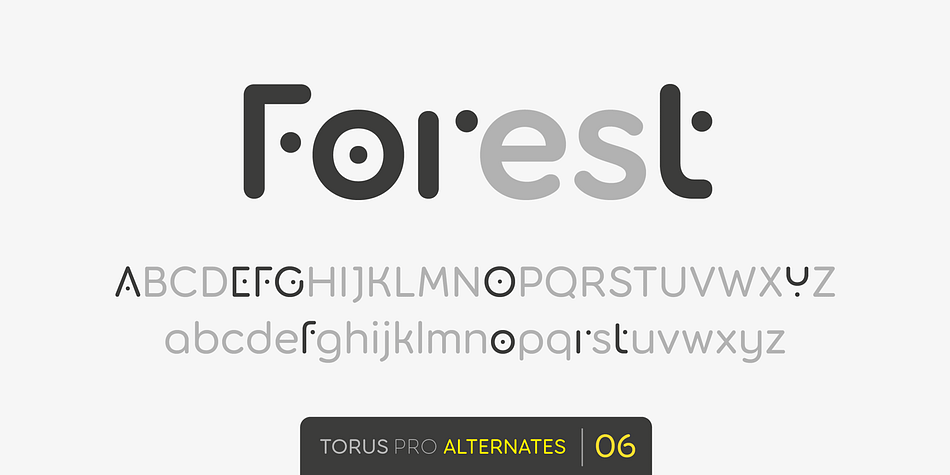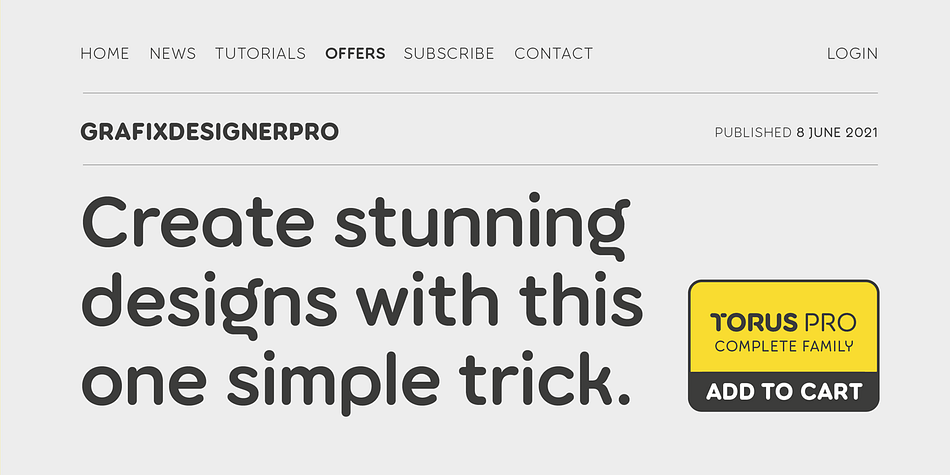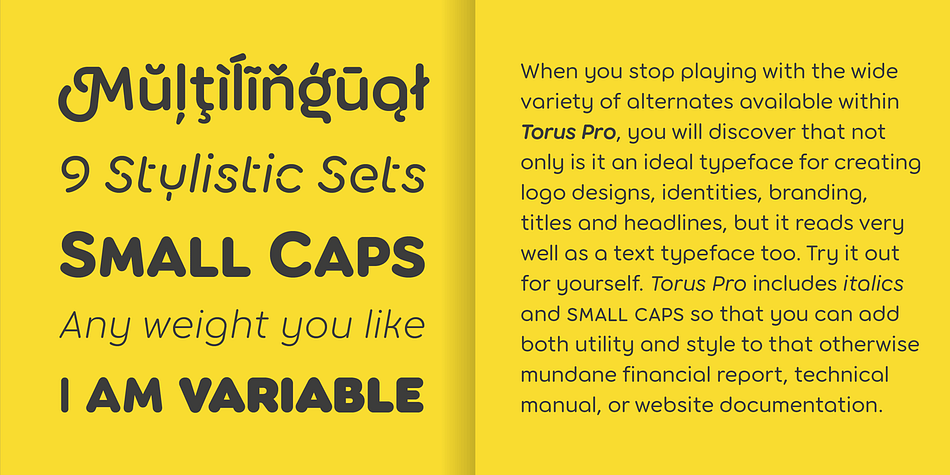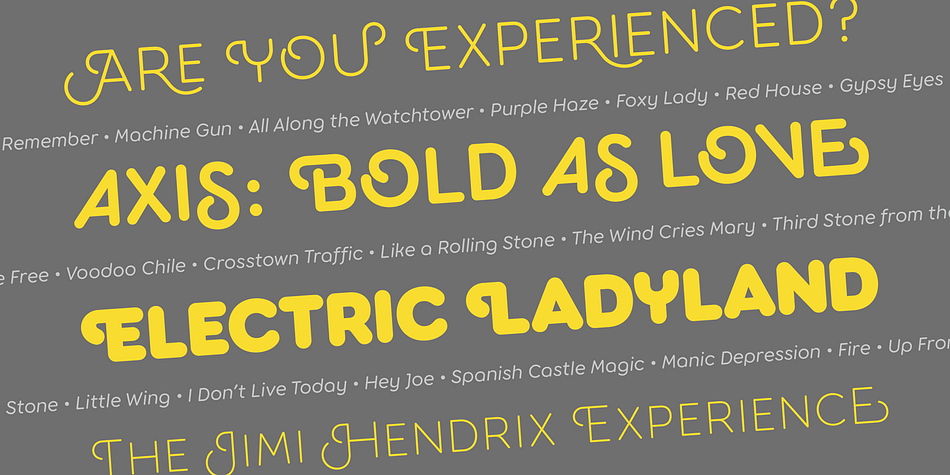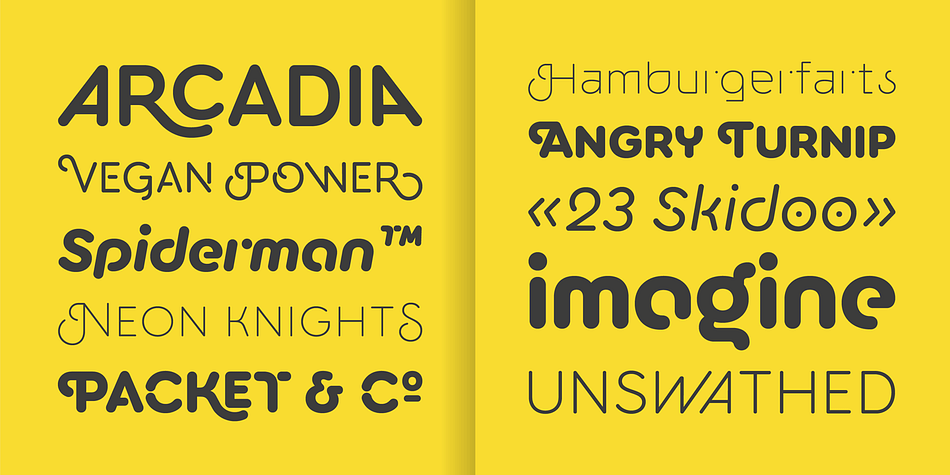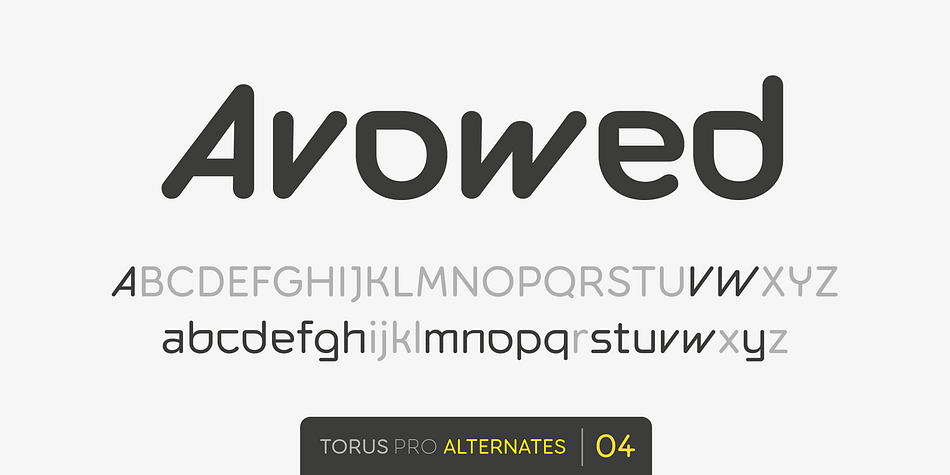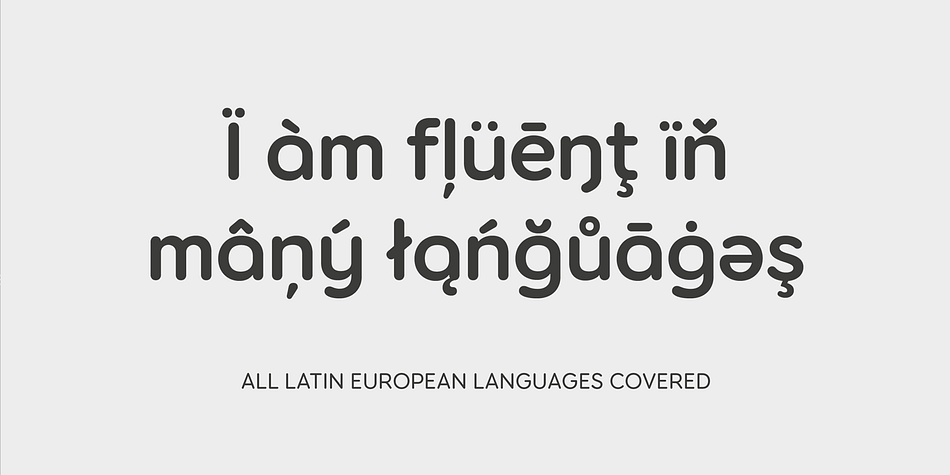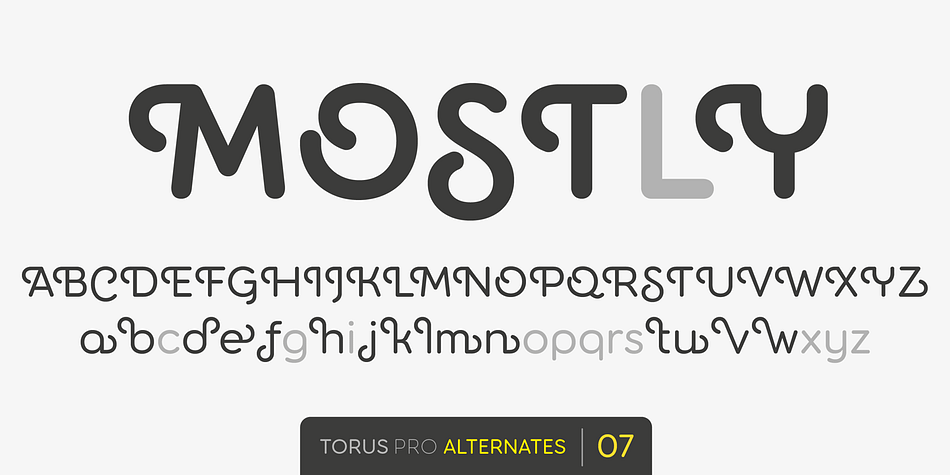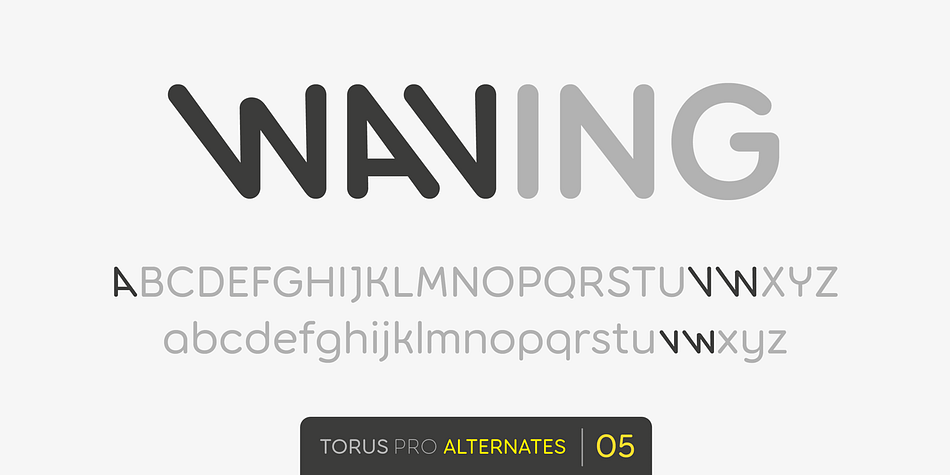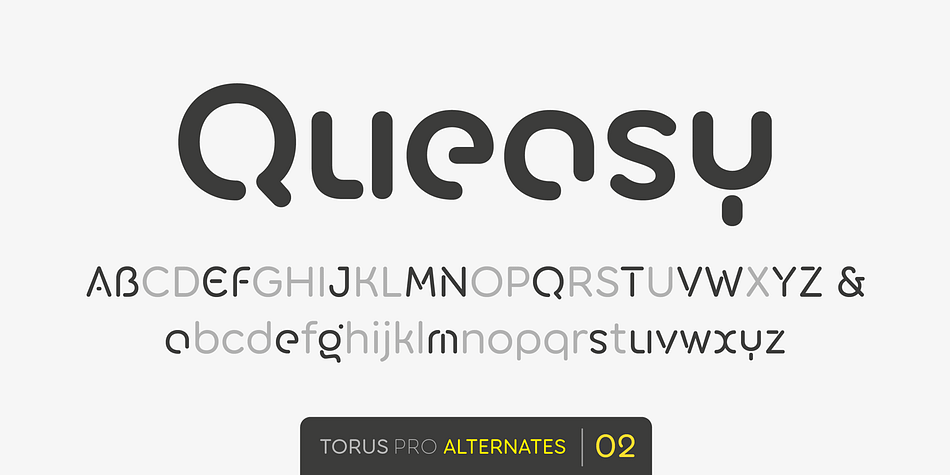
Designed by Paulo Goode, Torus Pro is a sans serif font family. This typeface has fourteen styles and was published by Paulo Goode.
Torus Pro is a rounded monoline typeface. As its name suggests, this is a more professional version of my original Torus family released in 2017. Each glyph has been scrutinised and redrawn where necessary. In addition, there are now italics, small caps, old style figures, and numerous other improvements.
Torus Pro includes many new decorative alternates and ligatures that will add distinctive flourishes to your typographic compositions. With up to nine alternates for some glyphs, these additional styles include stencilled, simple dots, looped and smooth swashes, plus a more aggressive angled option for those looking for something a little different. When used subtly, these alternates and glyph combinations will add flair and personality to your own creations. Perfect for titling and branding, Torus Pro also packs a punch without these features activated, as well as being a comfortable read in long runs of text.
There are 12 fonts altogether, ranging from Thin to Heavy weights in both roman and italic. The variable font versions of the family allow you to define the weight exactly to your liking. Torus Pro has an extensive character set that covers all Latin European languages.